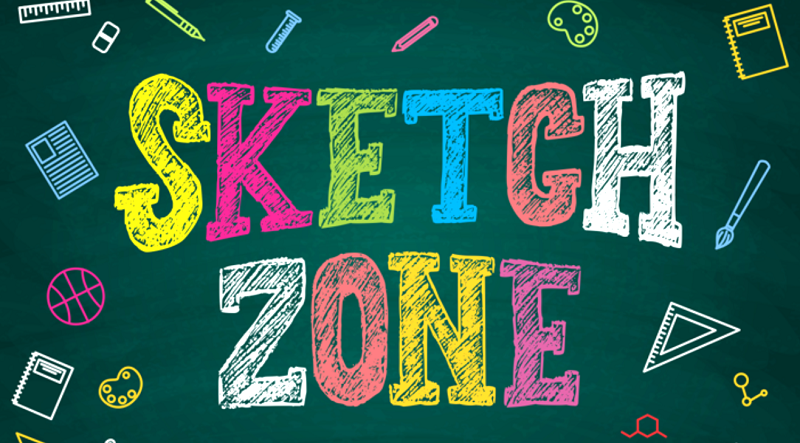
30 Best Chalkboard Fonts (Free & Premium)
Looking for a cute and quirky font for your next project? Want to give your designs that rustic, hand-drawn look? A chalkboard font is just what you need.
Chalkboard fonts are unique, visually interesting, and surprisingly versatile. Whether you’re looking for a bold outline font or a more delicate typeface, you’re sure to be able to find a chalkboard font to incorporate into your designs.
In this article, we’ll be taking a look at 30 of the best chalkboard fonts available from both free and premium sites.
But first, let’s learn a little about what chalkboard fonts are.
What is a chalkboard font?
Chalkboard fonts are fonts designed to emulate the style of letters on a chalkboard. Usually, they have a grainy scribbled texture, to give them that chalky look.
Chalkboard fonts come in many different varieties to suit a range of aesthetics.
Some are elaborate typography fonts that would look great on a cafe menu, and others are created to be reminiscent of old-school chalkboards with childlike lettering.
Keep reading to find the perfect chalkboard font for your project.
Best free and premium chalkboard fonts
Here are 30 of the best chalkboard fonts available online. Starting with our personal favorite…
1. Coffee Lab Chalkboard Font Collection – Our Top Pick
coffee lab chalkboard font
The Coffee Lab font collection is the perfect choice for anyone that would like a range of cool chalkboard fonts to choose from.
The pack includes 15 different styles including inline, outline, vintage rough, and rounded. The fonts in this collection would look perfect as part of a cafe board design, or as part of the poster and log designs.
2. Hungry Chalk Font
Hungry Chalk is a bold and playful chalkboard font that would be perfect for signage and posters. The font is inspired by coffee shop chalkboards and menus. What’s great about this font is that it’s extremely eye-catching and very easy to read.
3. Chalkboard – A Handmade Chalk Font
handmande chalkboard font
Chalkboard is a traditional chalkboard font. This simple handmade font is easy to read and yet extremely fun and stylish. The font is reminiscent of school chalkboards and would work great used in designs for schools or for designs that are aimed at children.
4. Drawing Guides
Drawing Guides is perfect if you’re looking for a chalkboard font that will really stand out. This font is bold and easy to read but still has all the elements of a classic chalkboard font. The font is filled with a stylish crosshatch design that is perfect for adding a bit of visual interest to a poster or a sign.
5. Chalk Zone
Chalkzone chalkboard font
Chalk Zone is a playful, block font perfect for use in classrooms or child-centric designs. The font is all upper case, so it really jumps off the page. This chalkboard font looks great in color or in a traditional white chalk style and is perfect for a variety of projects, from menu board designs to t-shirts.
6. Chalk Sketch
Chalk Sketch is a curvy block font. It’s extremely eye-catching and easy to read and would look great on t-shirts, mugs, and other merchandise items. The font pack includes an uppercase font as well as a range of punctuation and glyphs.
7. White Chalk
White chalk font
White Chalk is an extremely stylish and classy chalk font. This style serif font is the perfect choice for upscale designs such as wedding invitations, home decor items, or menus. The font is easy to read and traditional, making it a great choice for menus too.
The font pack includes uppercase and lowercase characters as well as numbers and punctuation.
8. DeCapoers Chalkboard Font
DeCapoers is a truly unique and stylish font that would be fitting for a range of projects. This font really has a hand-scribbled feel which can help to add authenticity and a personal touch to designs.